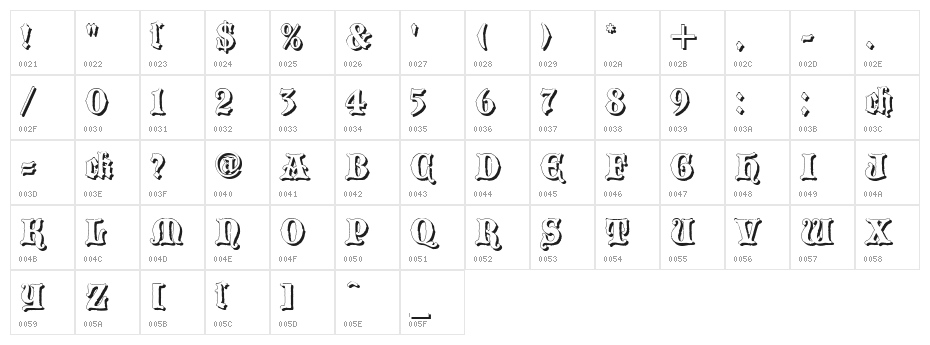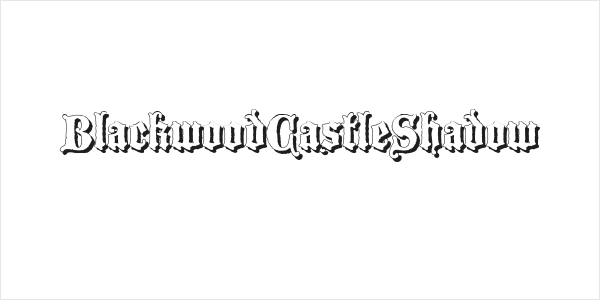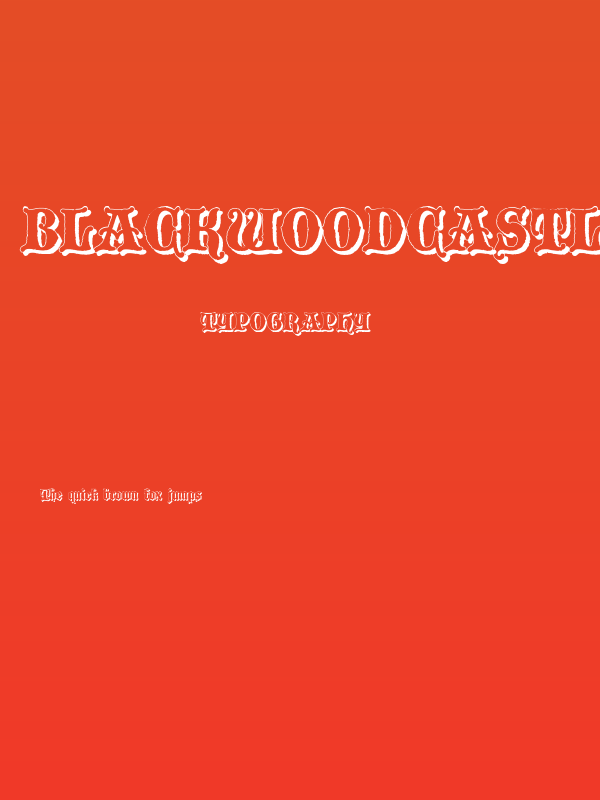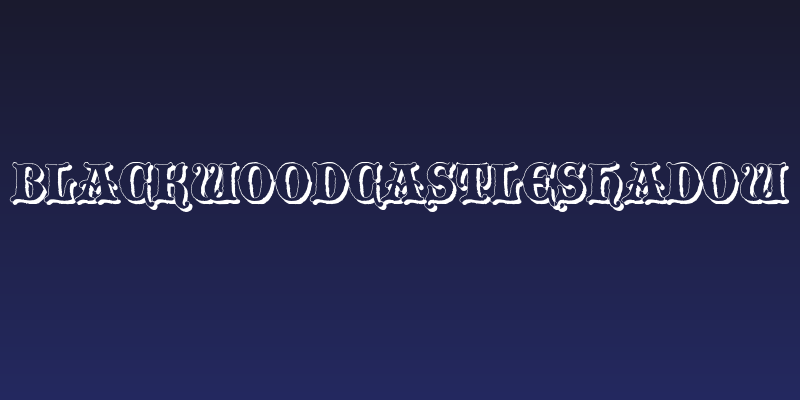
BlackwoodCastleShadow Font
BlackwoodCastleShadow Description
This font features a bold and dramatic style with a shadow effect that gives it a three-dimensional appearance. The characters are reminiscent of traditional blackletter scripts, with intricate and ornate detailing that adds a sense of historical elegance. The uppercase and lowercase letters maintain a consistent style, with sharp angles and decorative flourishes. The numbers and special characters are designed to match the overall aesthetic, making them suitable for a cohesive design. The shadow effect enhances the visual impact, making the text stand out prominently.